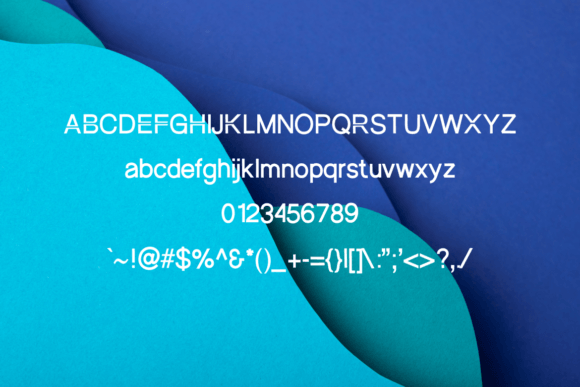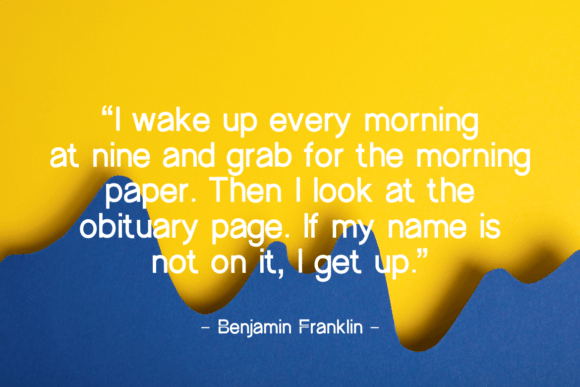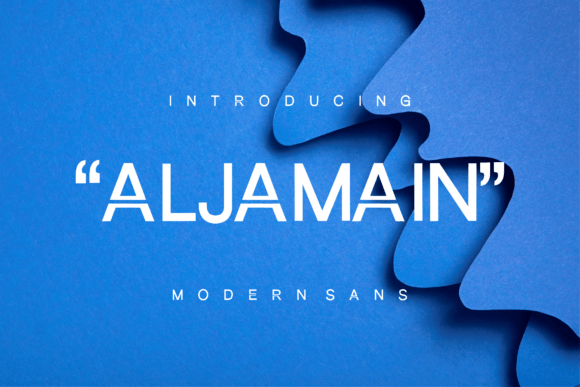
Introducing Aljamain Font: The Modern Sans Serif for Your Creative Projects
Are you on the hunt for a modern and neat sans serif font to elevate your design projects? Look no further than Aljamain Font! This sleek and contemporary font is perfect for designers and crafters looking to add a touch of sophistication and elegance to their work. In this article, we’ll dive into the world of Aljamain Font, exploring its features, benefits, and uses, as well as provide tips on how to make the most of this versatile font.
What is Aljamain Font?
Aljamain Font is a modern sans serif font designed to provide a clean and minimalist aesthetic to your designs. Its sleek lines, simple shapes, and balanced proportions make it an excellent choice for a wide range of projects, from branding and advertising to digital media and crafting. With its neutral and versatile design, Aljamain Font can be used in various contexts, ensuring your message is conveyed with clarity and style.
Key Features of Aljamain Font
- Modern and Neat Design: Aljamain Font boasts a fresh and contemporary look, perfect for designs that require a clean and minimalist approach.
- Sans Serif Style: The font’s sans serif design ensures excellent legibility, making it suitable for body text, headings, and titles.
- Versatile and Adaptable: Aljamain Font can be used in various design contexts, from digital media to print materials, and is compatible with multiple languages.
- Easily Readable: The font’s clear and balanced design ensures that your text is easily readable, even at smaller font sizes.
Benefits of Using Aljamain Font
So, why should you choose Aljamain Font for your projects? Here are just a few benefits of using this fantastic font:
- Enhance Your Brand’s Visual Identity: Aljamain Font’s modern design can help you create a strong and memorable brand image.
- Increase Legibility: The font’s clear and simple design ensures that your message is conveyed with clarity, making it perfect for body text and headings.
- Save Time and Effort: With Aljamain Font, you can quickly create professional-looking designs without spending hours on typography.
- Stand Out from the Crowd: Aljamain Font’s unique and stylish design will help your projects stand out in a crowded design landscape.
Using Aljamain Font in Your Projects
Now that you’re familiar with Aljamain Font’s features and benefits, let’s explore some ideas for using this fantastic font in your projects:
- Branding and Logo Design: Use Aljamain Font to create a modern and memorable logo that reflects your brand’s values and personality.
- Digital Media: Aljamain Font is perfect for digital media, including social media graphics, blog posts, and website designs.
- Print Materials: The font is also suitable for print materials, such as brochures, flyers, and business cards.
- Crafting and DIY Projects: Add a touch of modern elegance to your crafting and DIY projects, such as handmade cards, gift tags, and signs.
Tips for Getting the Most out of Aljamain Font
To make the most of Aljamain Font, here are a few tips to keep in mind:
- Experiment with Font Sizes: Aljamain Font looks great at various font sizes, so don’t be afraid to experiment to find the perfect size for your project.
- Pair with Other Fonts: Try pairing Aljamain Font with other fonts to create a unique and visually appealing typography combination.
- Use Color Effectively: Use color to add contrast and visual interest to your designs, and make sure the text is easily readable.
Aljamain Font is a modern and neat sans serif font that’s perfect for designers and crafters looking to add a touch of sophistication and elegance to their projects. With its versatile design, excellent legibility, and wide range of uses, Aljamain Font is an excellent choice for anyone looking to elevate their design game. So why wait? Add Aljamain Font to your projects today and experience the difference for yourself!